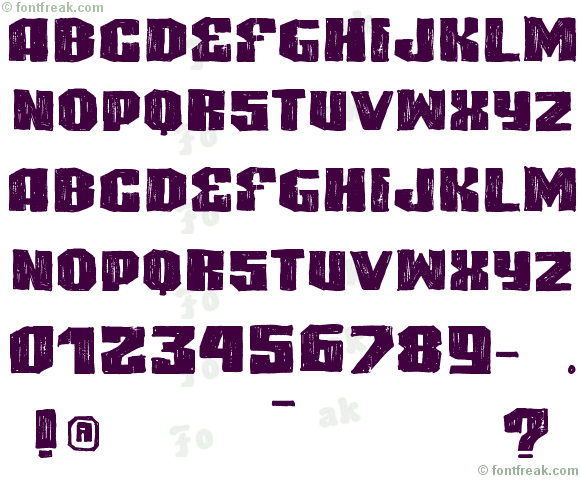
VTKS HIGHLIGHT 3
About VTKS HIGHLIGHT 3
VTKS HIGHLIGHT 3, designed by Douglas Vitkauskas, is a distinctive display font that captures attention with its bold, impactful style. This freeware font features a unique blend of thick and thin strokes, giving it an energetic appearance that stands out in any context. The letters are characterized by a strong weight and a slightly rugged texture, which adds a sense of dynamism and character. The spacing between the characters is carefully crafted to maintain legibility while enhancing its striking visual appeal.
This font is ideal for use in a variety of creative projects. It works exceptionally well for eye-catching movie posters, where its boldness can convey excitement and action. Additionally, VTKS HIGHLIGHT 3 is perfect for restaurant menus, giving a casual yet trendy feel that can engage diners. Its unique style also lends itself to branding for small businesses looking to stand out in a competitive market. Furthermore, content creators can utilize this font in social media graphics to grab the audience's attention quickly.
Target audiences for this font include graphic designers seeking unique typefaces for their projects, small business owners aiming to create memorable branding, and content creators looking for striking visuals to enhance their online presence.
What sets VTKS HIGHLIGHT 3 apart is its ability to combine a playful, energetic vibe with practical usability. This makes it a versatile choice for a wide range of applications while maintaining a distinct character that draws viewers in. For those interested in incorporating this engaging font into their designs, a VTKS HIGHLIGHT 3 font free download is available, making it accessible for all creative endeavors.